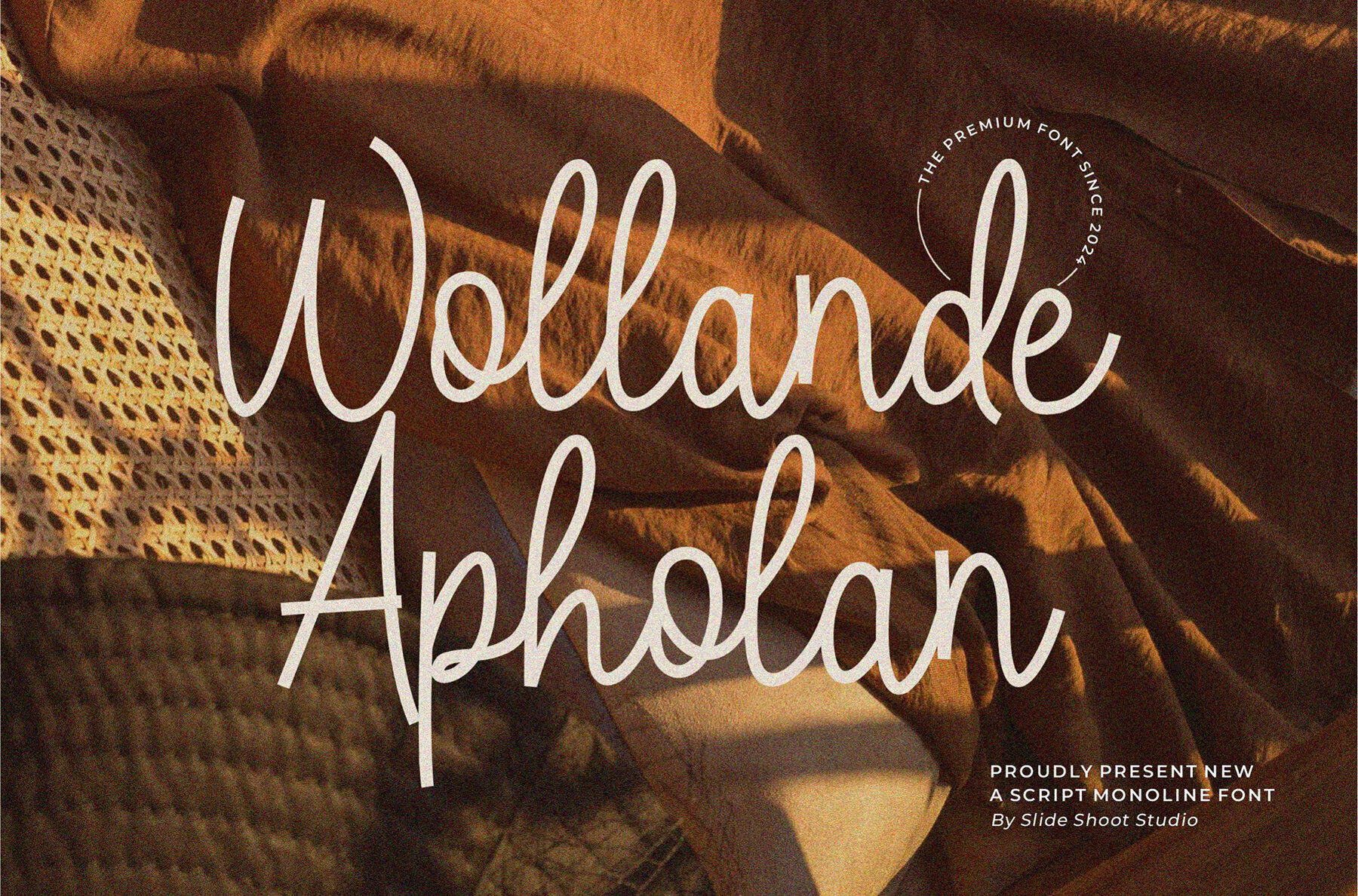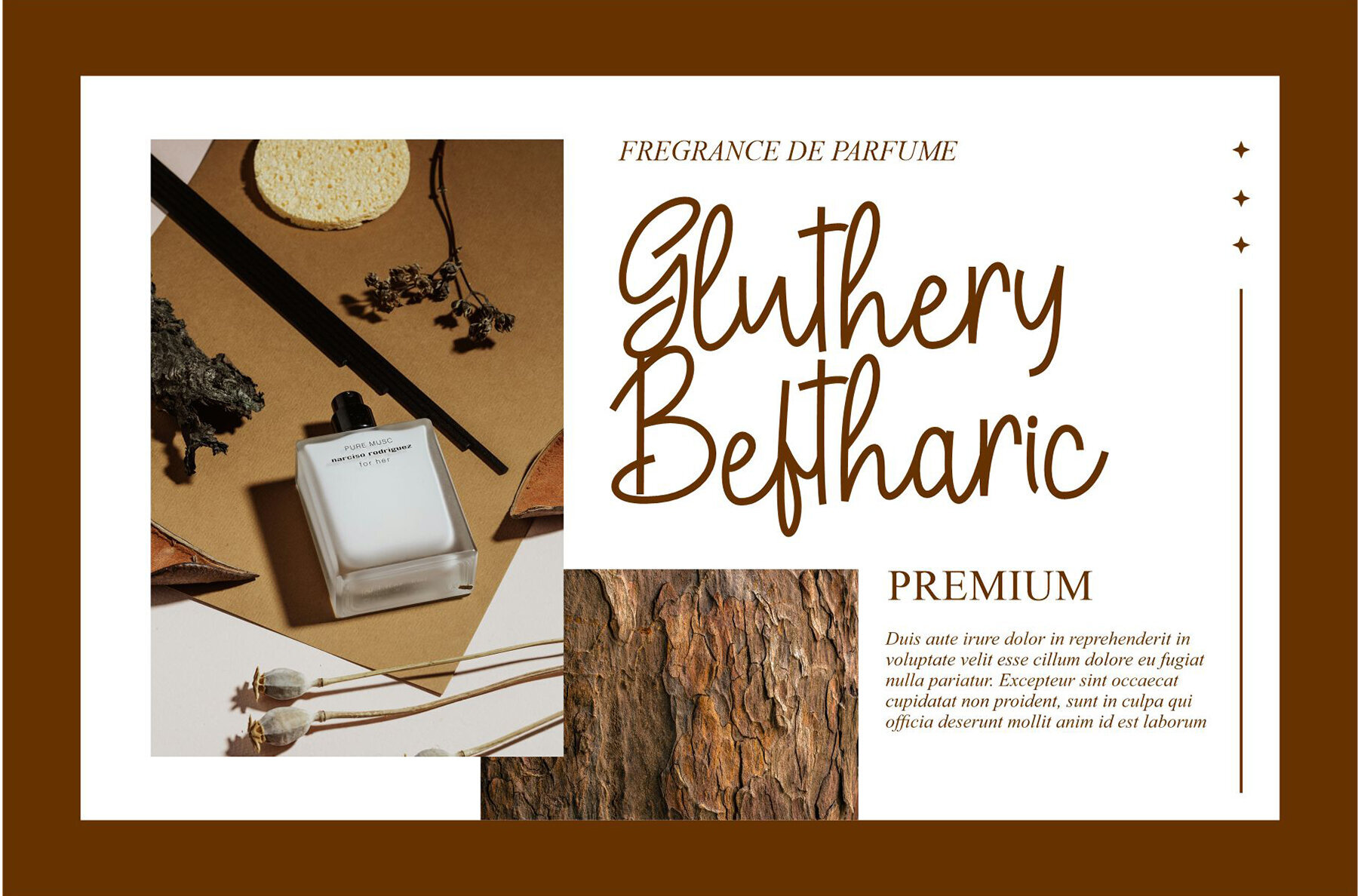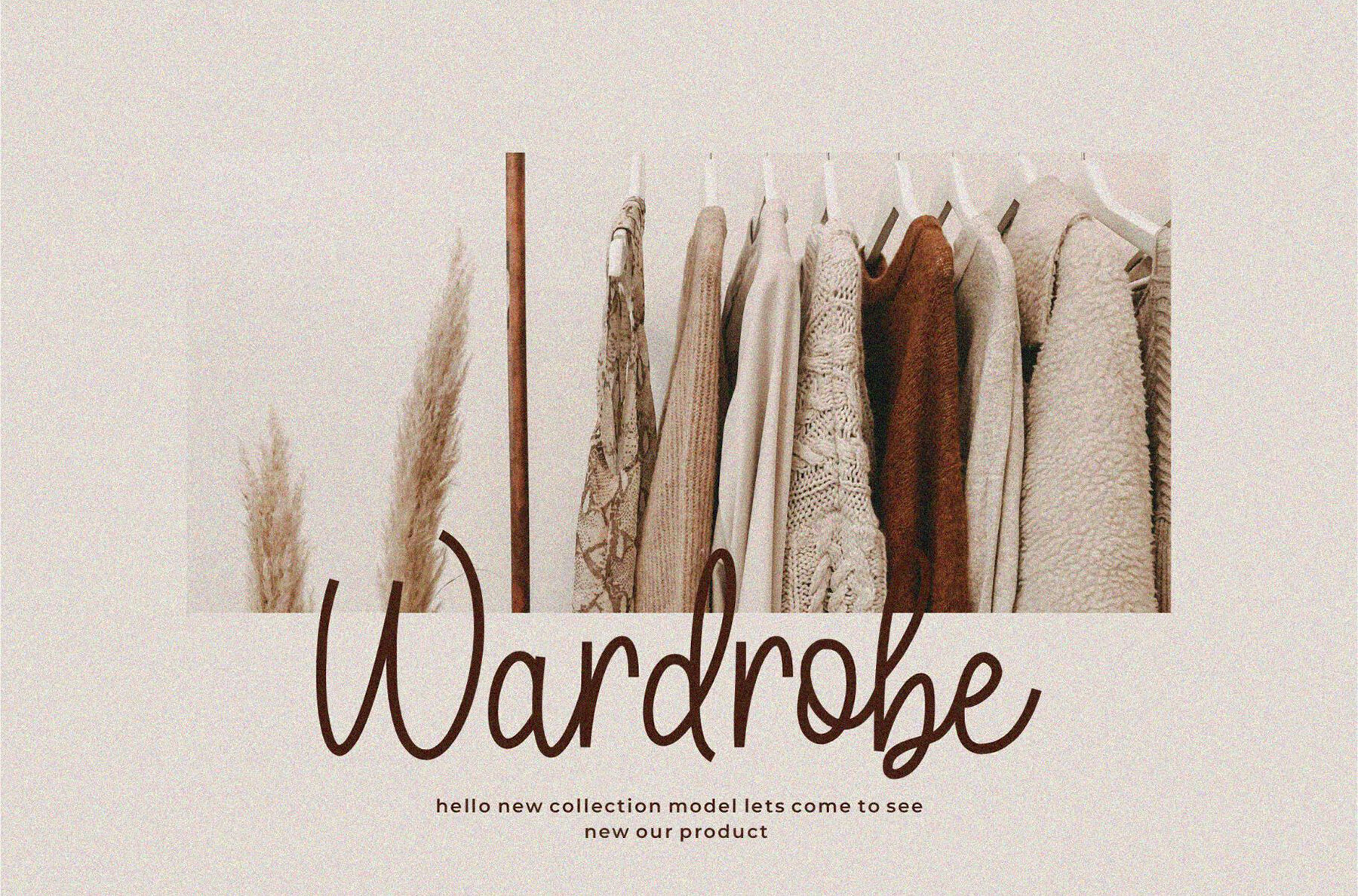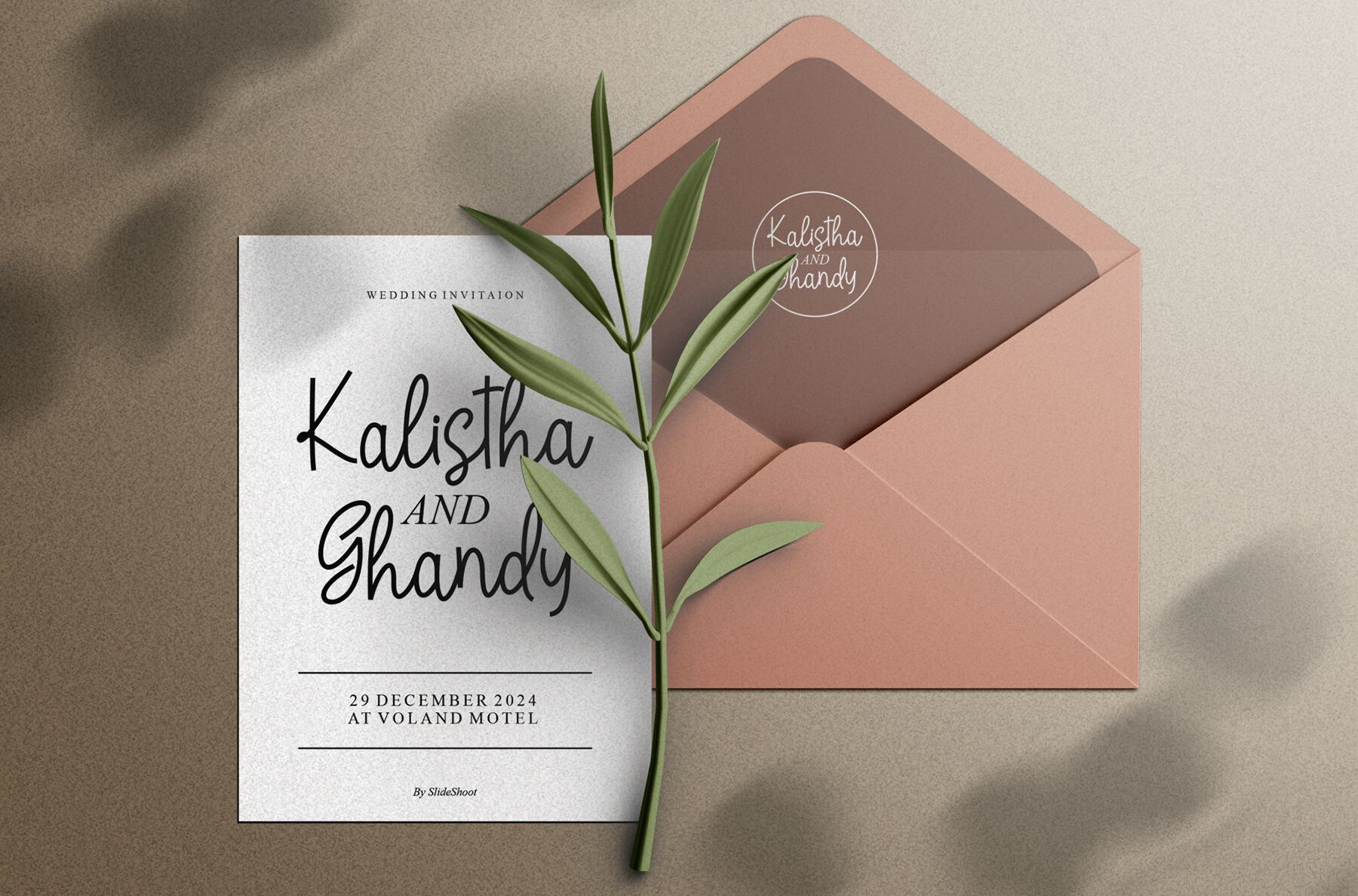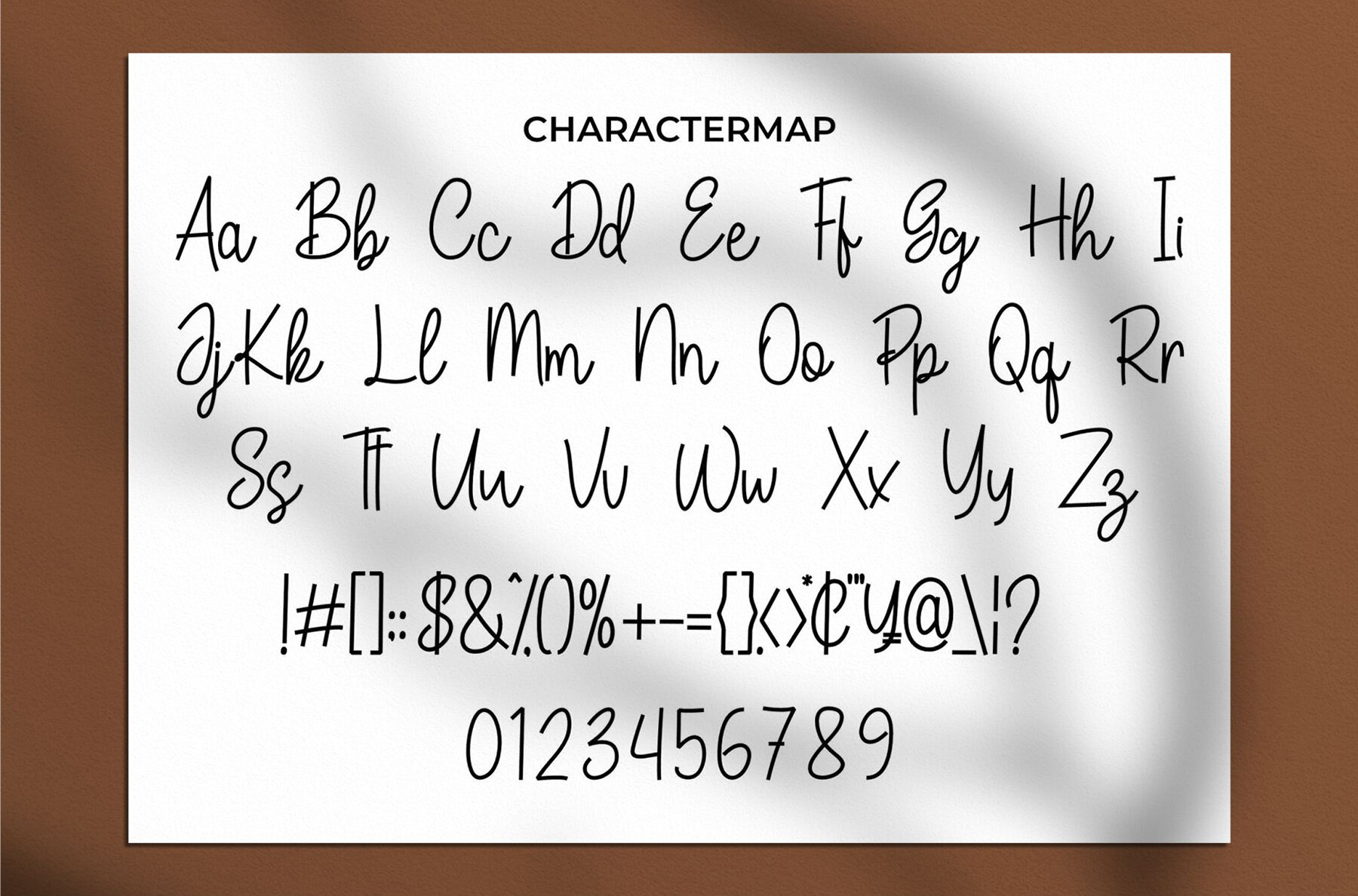
Wolande Apoland Font
Wollande Apholan
Wollande Apholan is a beautifully crafted handwritten font that combines casual elegance with versatility. This font is perfect for adding a personal touch to various design projects, from branding and product packaging to invitations and wedding designs. Its fluid and graceful style makes it suitable for both formal and informal applications.
Designed for a wide range of creative uses, Wollande Apholan enhances visual appeal in labels, social media posts, advertising, and stationery. Whether you're working on a photography project or designing unique product concepts, this font's adaptability ensures it can be seamlessly integrated into your work. With Wollande Apholan, you can achieve a natural and stylish aesthetic in all your creative endeavors.